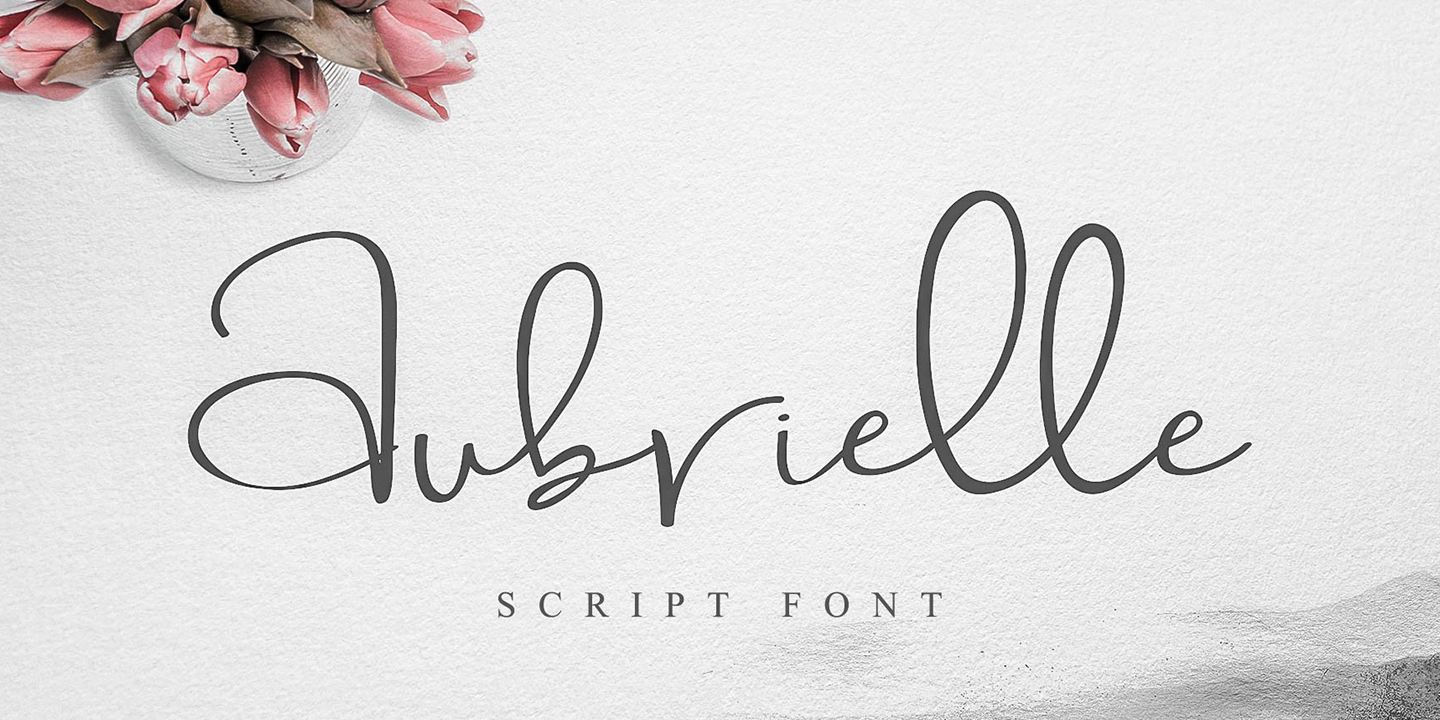
Aubrielle Font excels in wedding invitations, feminine branding, beauty packaging, fashion magazines, luxury cosmetics, romantic greeting cards, elegant stationery, and high-end lifestyle designs.
Aubrielle Font is exciting because it captures timeless feminine elegance with its graceful curves and sophisticated charm that speaks to modern luxury and refined taste. This font delivers enchanting beauty with professional versatility that elevates any design project to premium status.
Aubrielle Font family includes light, regular, medium, bold weights, plus italic variations and decorative swashes, offering complete elegance for sophisticated feminine design applications.
Embrace timeless elegance with Aubrielle Font Free Download. This exquisite typeface embodies feminine sophistication and luxury, featuring graceful letterforms that flow with natural beauty and refined charm. Perfect for designers creating premium feminine brands, this font delivers exceptional elegance with versatile functionality that enhances any luxury design project.
The meticulously crafted characters showcase delicate proportions and flowing curves that evoke feelings of romance and sophistication. Each letter demonstrates artistic refinement while maintaining excellent readability across both print and digital applications, making it ideal for high-end commercial use.
Whether you're designing bridal collections, beauty campaigns, or luxury lifestyle brands, Aubrielle Font provides the sophisticated femininity your projects deserve. This versatile typeface seamlessly combines classic elegance with contemporary functionality, making it an essential tool for designers who specialize in creating beautiful, memorable experiences that resonate with discerning female audiences and luxury market segments.